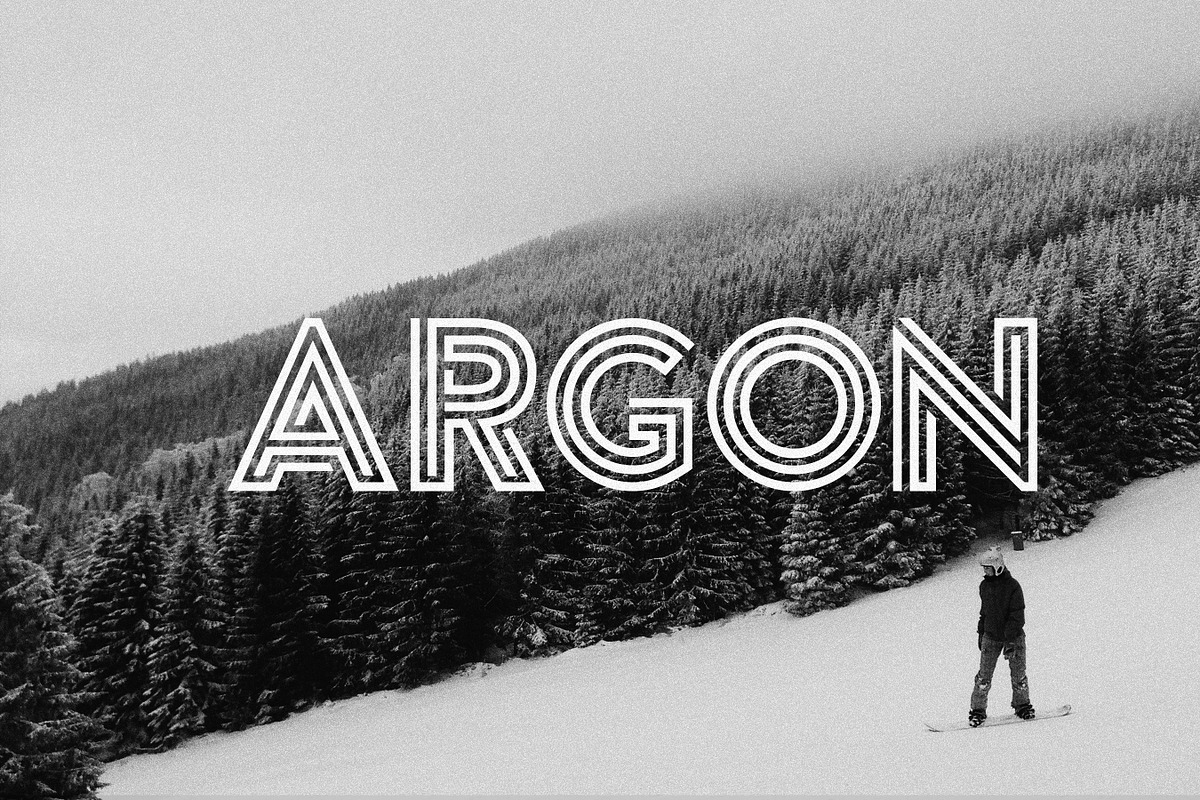
Argon Font (Full)
Argon Font (Full) by TomAnders is a font selected for branding, posters, packaging, typography.
- Made for giving titles an extra punch, Argon packs a full set of capitals, numbers and punctuation.
Why Argon Font (Full) is worth a look
Argon Font (Full) by TomAnders fits naturally into Branding, posters, packaging, typography.